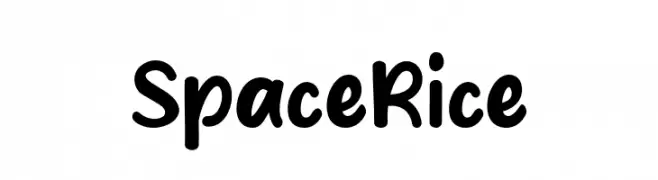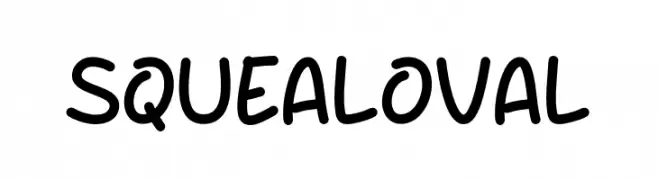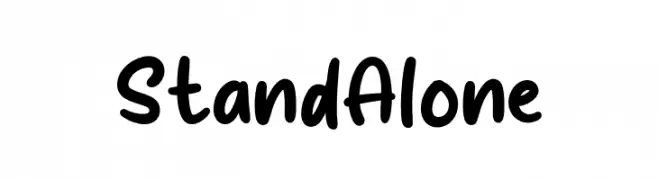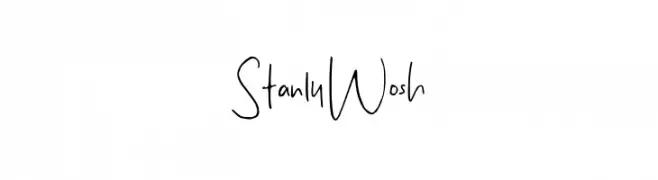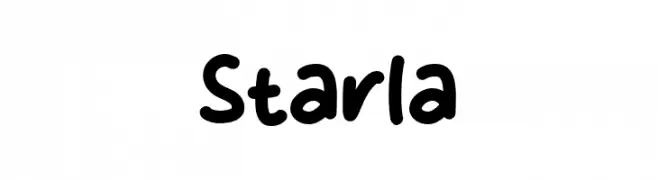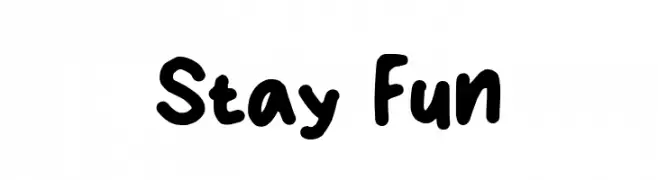
A playful, rounded font with a hand-drawn, whimsical style.
A playful, handwritten-style font with bold, rounded strokes and a lively character.
A playful handwritten font with smooth curves and a casual style.
A playful, rounded font with a hand-drawn, friendly appearance.
A bold, playful handwritten font with smooth, rounded edges.
A casual, handwritten font with a playful and informal style.
A fluid, cursive font with a casual, elegant style.
A playful, bold font with rounded, thick strokes and a hand-drawn feel.
A playful, bold font with rounded, thick strokes and a whimsical, casual vibe.